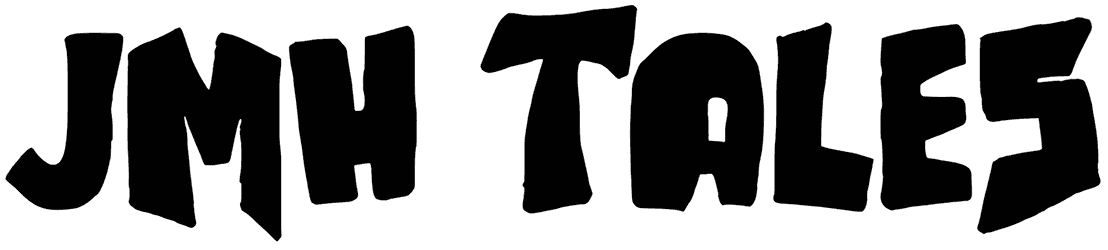
JMH Tales Font
An all-caps horror font, the same as JMH Tales, can be your superior game-changer in the realm of creating timeless artwork like movie posters, video game brochures, product packaging, labels, or stickers.
Since it can add a sense of jauntiness, grunge, eeriness, or fear to a wide set of graphic content, not supporting numbers will not be a serious problem. Also, don’t forget to check out the RB collection to find more Halloween fonts like this one.